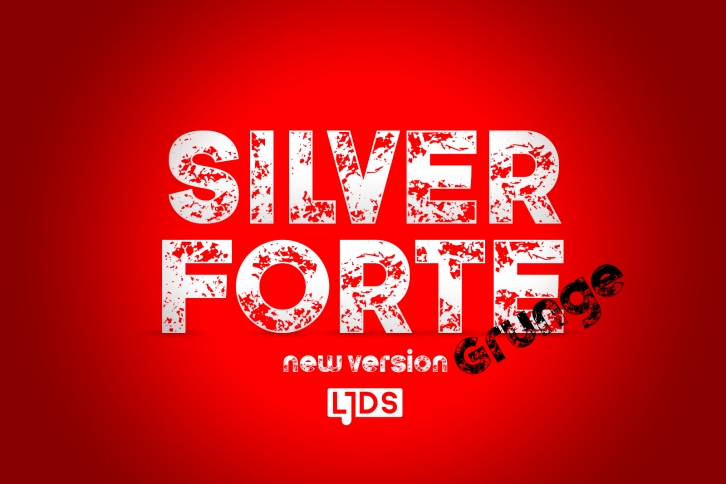
Silver forte Grunge is a beautiful font that was designed by LJ Design Studios. It's a great choice for designers and creatives who need such a font. It was released on November 1, 2018 and the file size is 4.77 MB. Silver forte Grunge may give a more youthful, expressive and casual look to your project. It is a very beautiful, refined, elegant, and high-quality font.